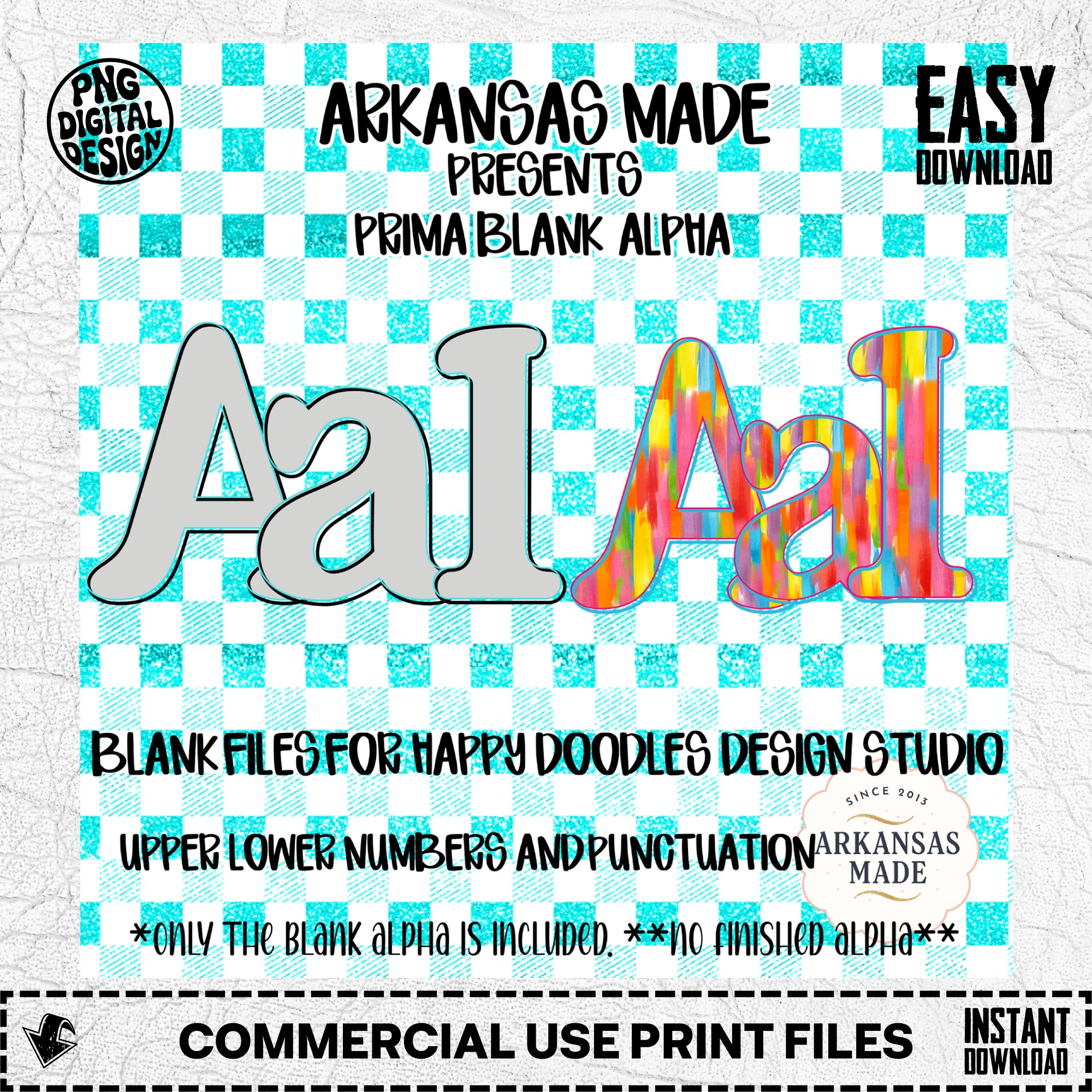
Unlock endless creativity with our Blank Digital Alphas! This versatile outline font includes uppercase, lowercase letters, numbers, and punctuation for all your design projects. Perfect for digital crafters, graphic designers, and small business owners, these blank outlines are your canvas for personalized creations. Use them for sublimation, print-on-demand, custom monograms, or unique educational materials. An ideal resource for anyone looking to add a professional touch to their digital artwork, allowing for limitless customization possibilities.
Unleash your creativity with this Prima Blank Alpha Digital File, perfect for Happy Doodles Design Studio font filler and alpha mockup maker projects. This essential digital download provides versatile blank letters, numbers, and punctuation in both uppercase and lowercase, ready for your unique customization. Ideal for crafters, small business owners, and designers looking to create personalized items, it’s a fantastic resource for any digital making venture. The files are named to work with Happy Doodles Hey Squirrel Design Studio. They are ready to upload to the font filler and alpha mockup maker.